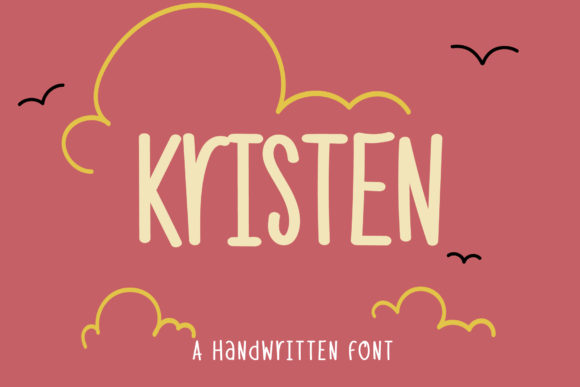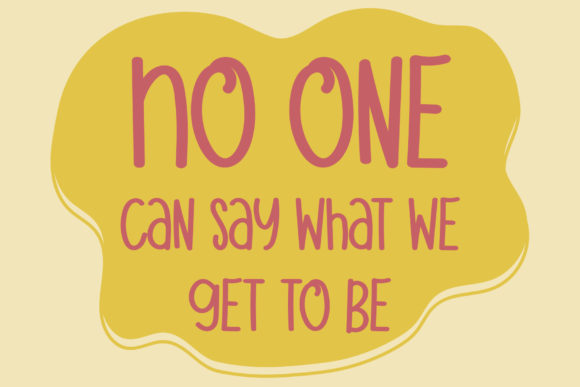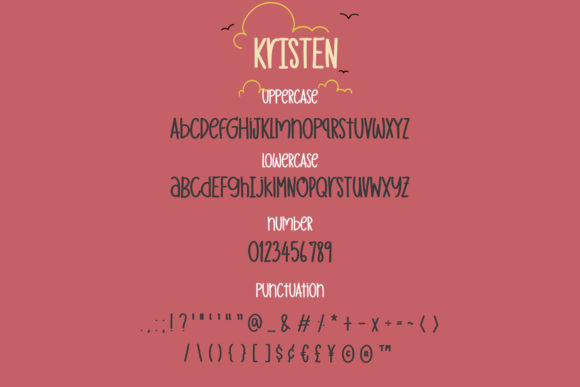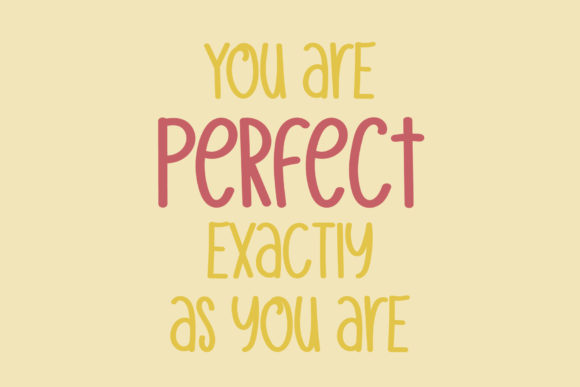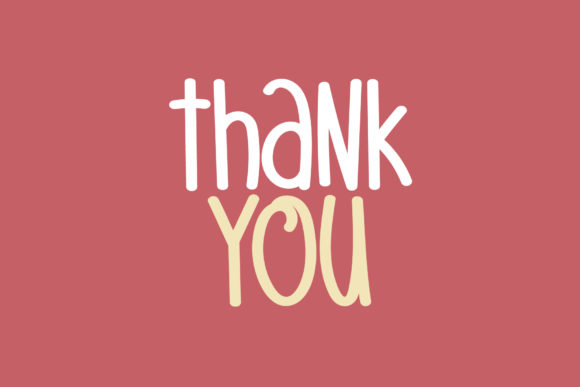
Kristen Font
About Kristen Font
Kristen feels equally charming and elegant. This handwritten font is the perfect fit for all of your logos, branding, social media, and crafty DIY projects.